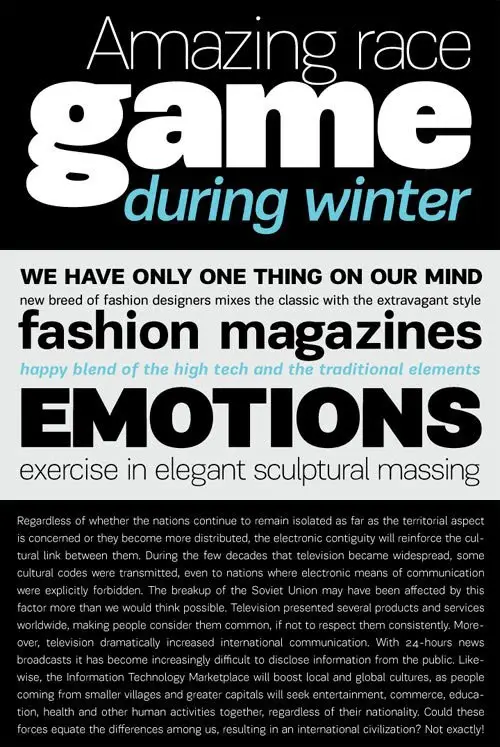
PF Encore Sans Pro Font Family
Encore Sans Pro is a sans serif which projects an image of reliability, authority and competence making it ideal for corporate applications. A functional typeface which combines utility with style. It’s subtle round characteristics such as the slightly curved-in edges, create a distinctly contemporary look, blending effectively traditional with modern details. Encore Sans Pro has received 3 international awards and distinctions including a Silver at the european ED Awards 2010. This is a contemporary typeface which may function as the perfect alternative to several overused classic sans. Encore Sans Pro does not pretend being different but it does claim its own personality. It is simple and stylish. Furthermore, it is extremely versatile. It comes with 22 weights and supports simultaneously Latin, Greek and Cyrillic. Each font contains 1535 glyphs and is loaded with 22 advanced OpenType features. Extreme weights, such as the elegant hairline, are carefully designed to establish an even color throughout, while ultra black despite its heavy characteristics is quite legible and powerful. Other intermediate weights such as light and book are ideal as body text for magazines and catalogs. Every font in this series has been completed with 270 copyright-free symbols, for packaging, public areas, environment, transportation, computers, fabric care and urban life.